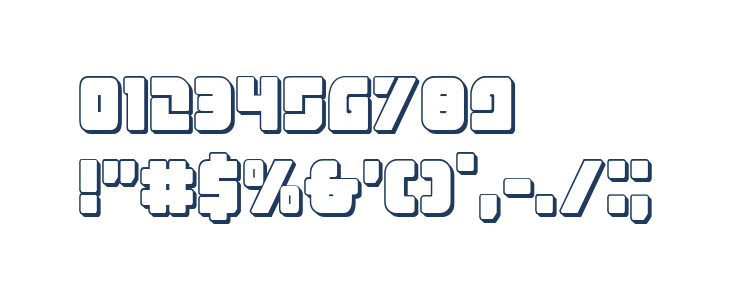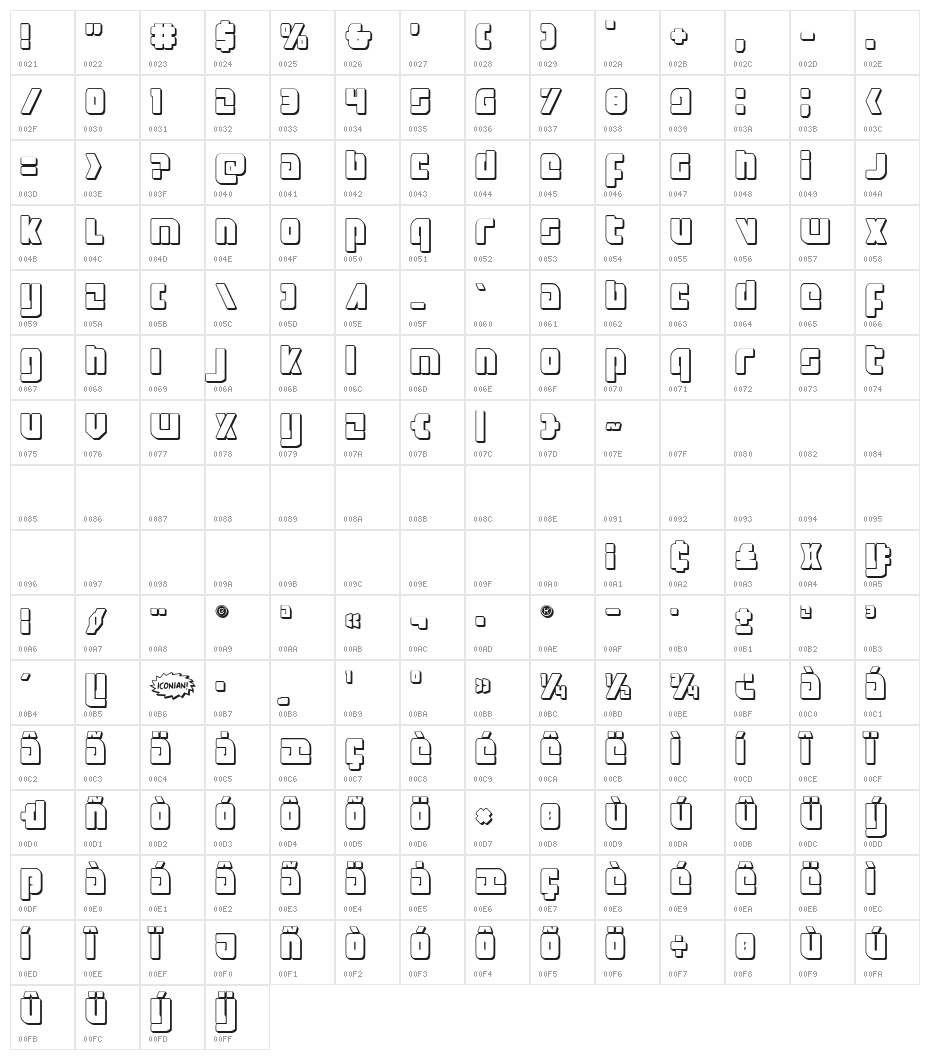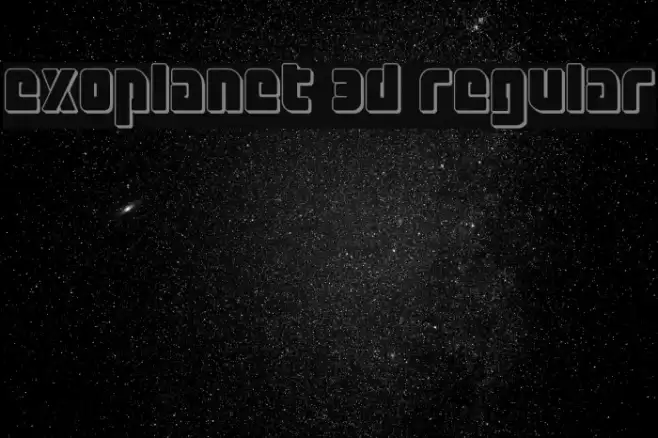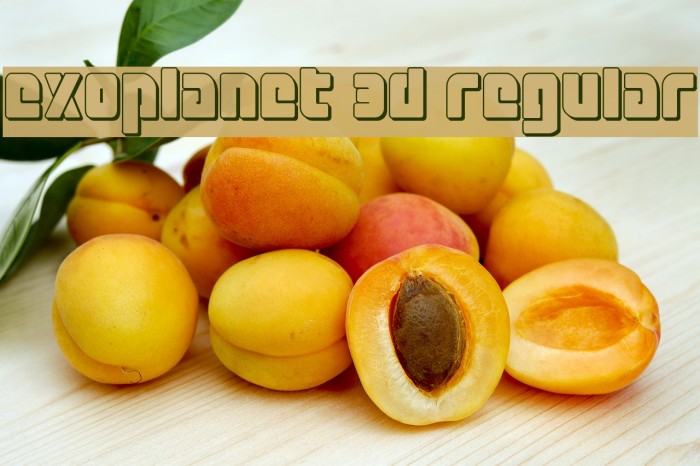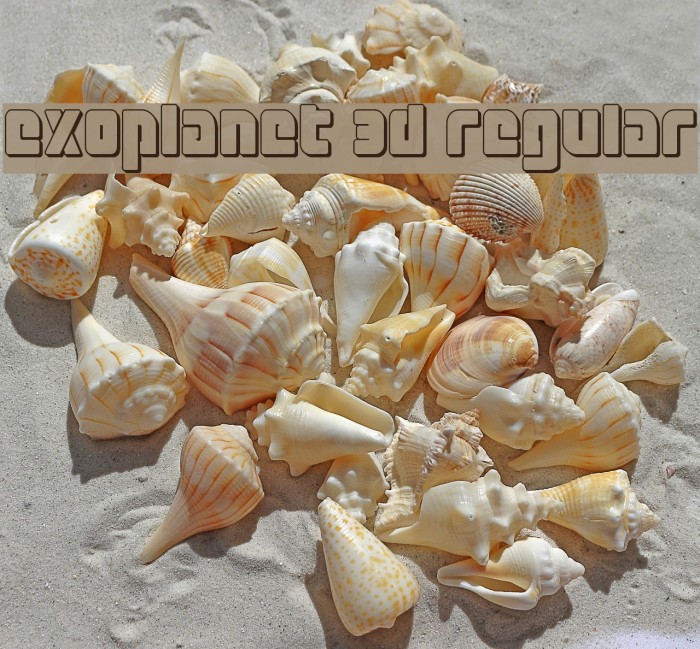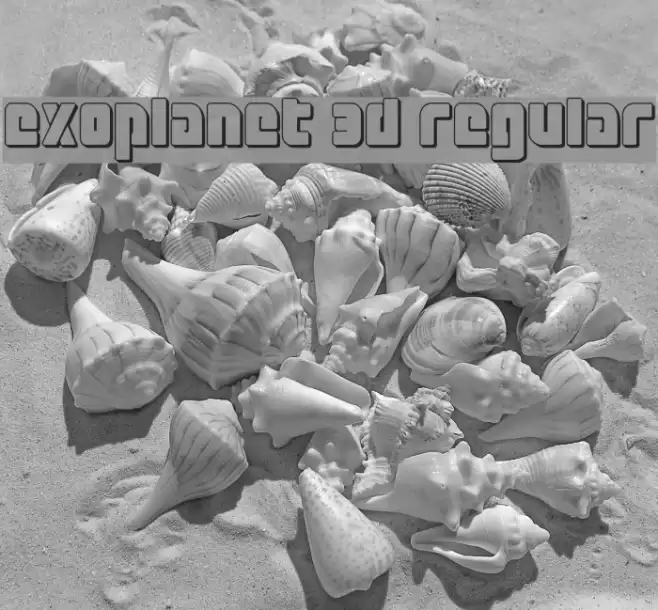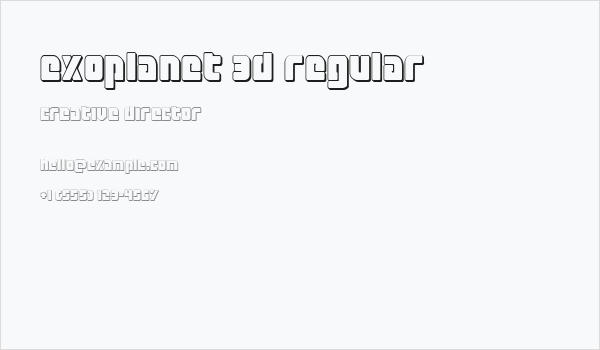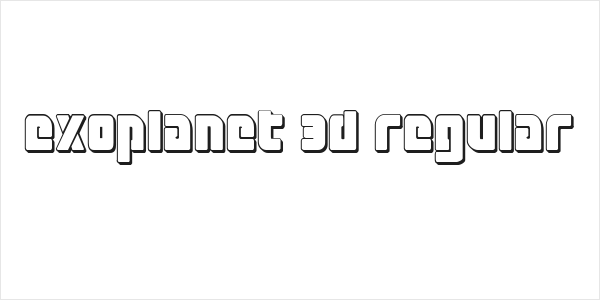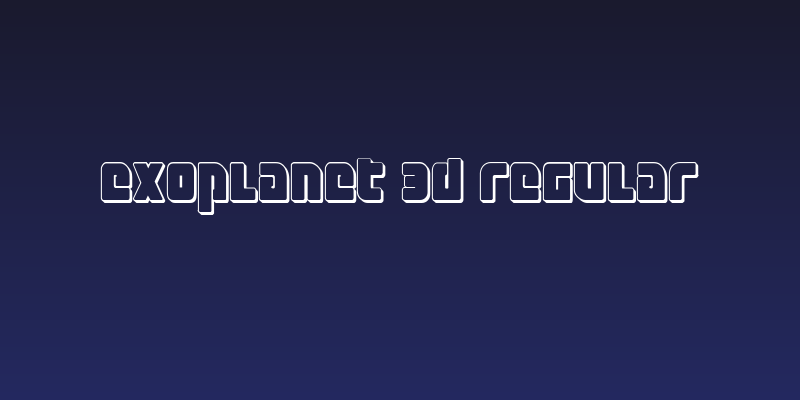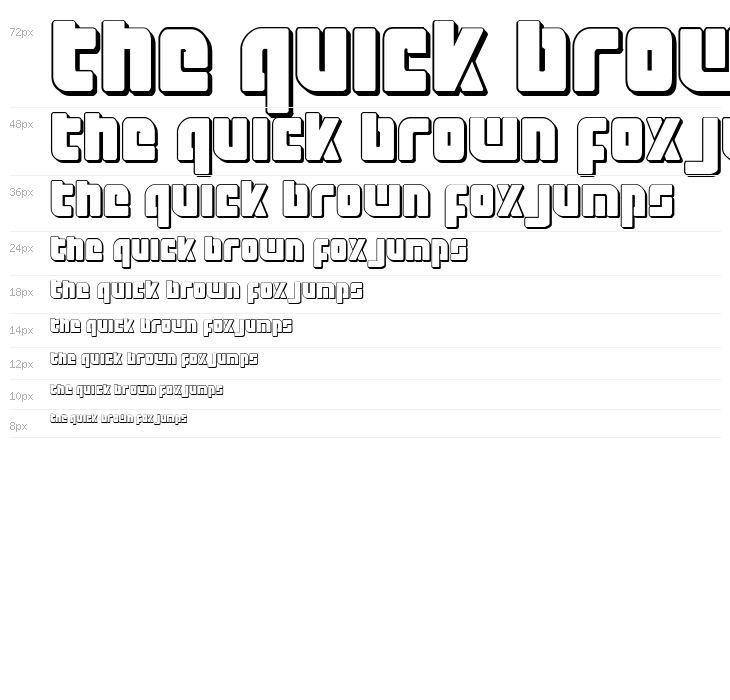
Exoplanet 3D Regular Font
Exoplanet 3D Regular Description
This font features a futuristic and geometric design, characterized by its bold, block-like letters with a three-dimensional effect. The characters are outlined, creating a hollow appearance that adds depth and dimension. The style is consistent across uppercase, lowercase, numbers, and special characters, maintaining a uniform look. The font's distinct, angular shapes and clean lines give it a modern and tech-inspired aesthetic, making it ideal for projects that require a contemporary and eye-catching typeface.
| Proposed Projects | Ideal for sci-fi themed posters, video game titles, tech branding, and futuristic event invitations. |